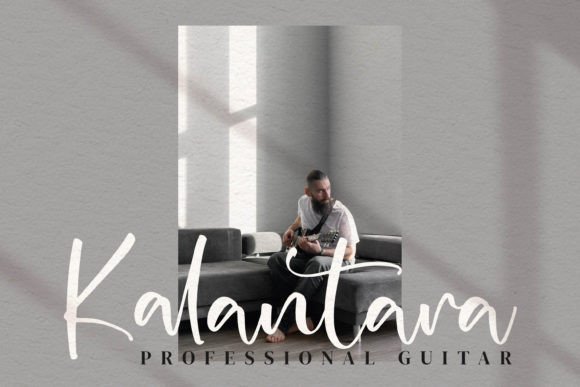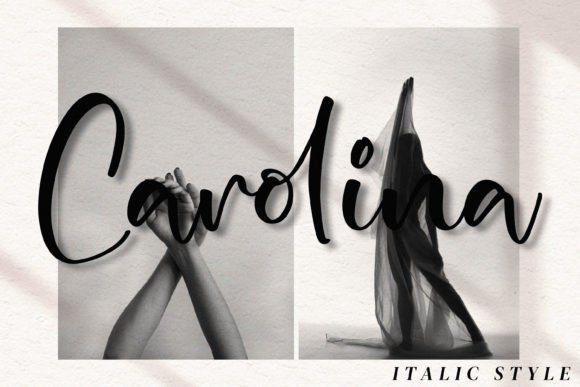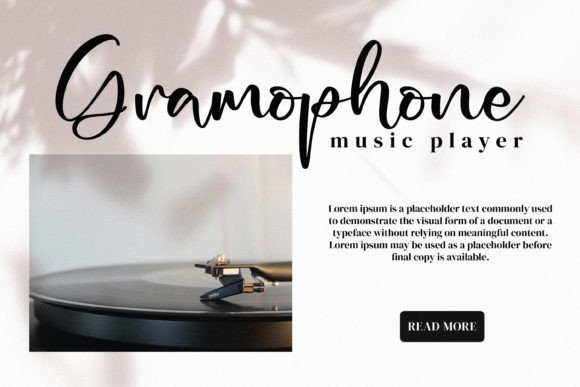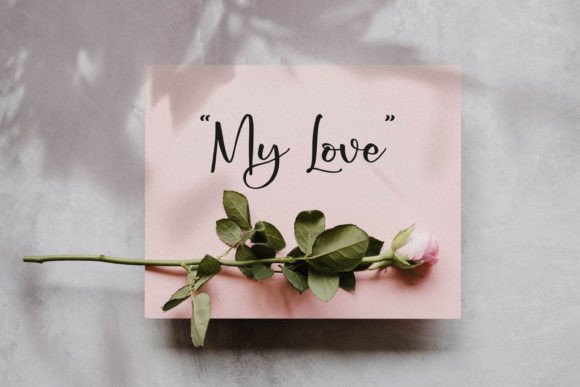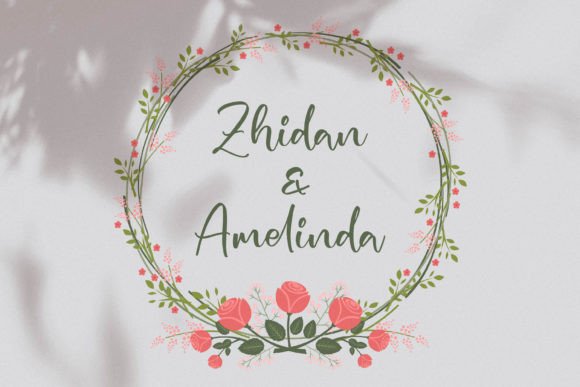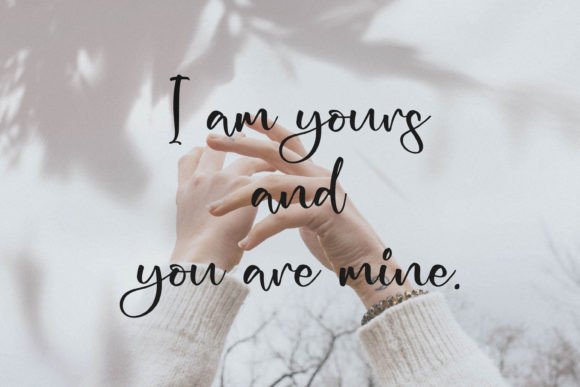
Introducing Airnon Font: Elevate Your Designs with Elegance and Style
Are you a designer, crafty enthusiast, or simply someone who appreciates beautiful typography? Look no further than Airnon Font, a stunning handwritten script font that can instantly elevate your creations. With its elegant and stylish flair, Airnon Font is the perfect addition to any font library, capable of enhancing a wide range of projects and topics.
The Beauty of Airnon Font
Airnon Font boasts a unique, hand-crafted aesthetic that exudes sophistication and refinement. Its flowing script lines and delicate curves create a mesmerizing visual effect, perfect for adding a touch of luxury to your designs. Whether you’re working on a branding project, crafting a social media graphic, or creating a beautiful wedding invitation, Airnon Font is sure to make a lasting impression.
One of the standout features of Airnon Font is its incredible versatility. This font is suitable for a wide range of applications, from:
Airnon Font’s adaptability makes it an excellent choice for designers and crafters who work on diverse projects or want to experiment with different styles.
Why Choose Airnon Font?
With so many fonts available, why should you choose Airnon Font for your projects? Here are just a few compelling reasons:
- Elegance and sophistication: Airnon Font adds a touch of refinement and luxury to any design.
- Easy to read: Despite its ornate appearance, Airnon Font remains highly legible, making it perfect for body text and headlines.
- Unique and distinctive: Airnon Font’s hand-crafted nature ensures that your designs will stand out from the crowd.
- High-quality: Airnon Font is crafted with precision and attention to detail, guaranteeing a professional finish.
Tips for Using Airnon Font
To get the most out of Airnon Font, here are some expert tips:
- Pair with contrasting fonts: Combine Airnon Font with a clean, sans-serif font to create visual interest and hierarchy.
- Experiment with colors: Airnon Font looks stunning in a range of colors, from metallics to pastels.
- Play with sizes: Use Airnon Font in various sizes to create visual emphasis and add depth to your designs.
Airnon Font is a game-changing addition to any font library, offering a unique blend of elegance, sophistication, and versatility. Whether you’re a seasoned designer or a crafty enthusiast, this beautiful handwritten script font is sure to inspire and elevate your creations. With its high-quality craftsmanship and adaptability, Airnon Font is an investment that will pay dividends for years to come.